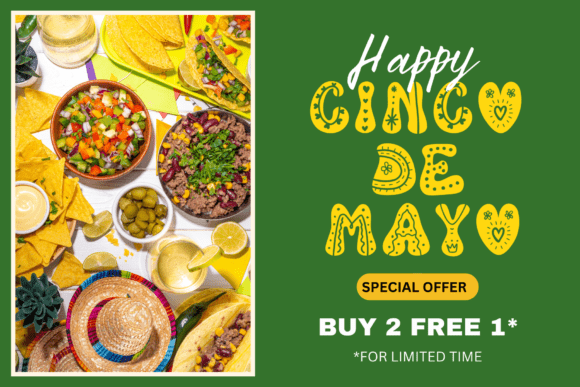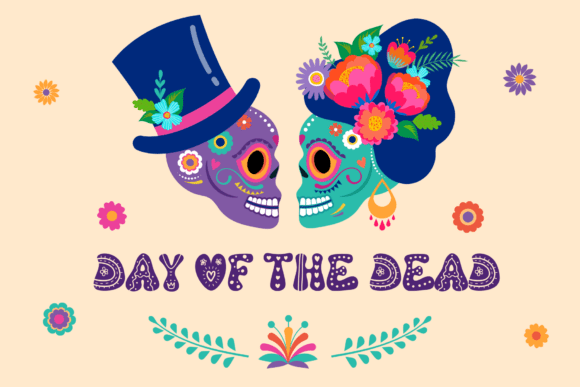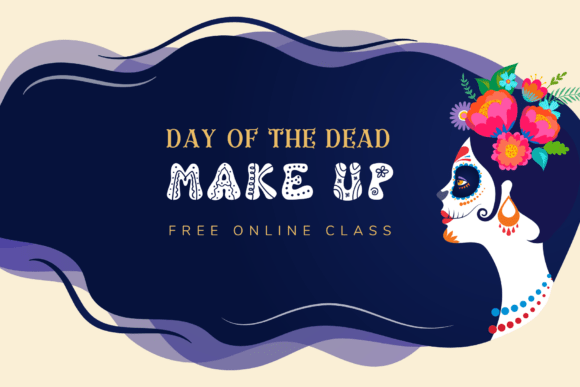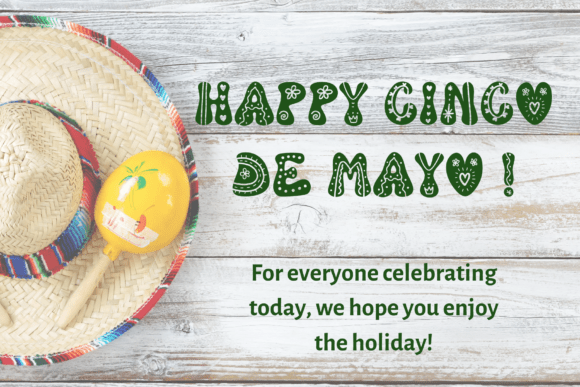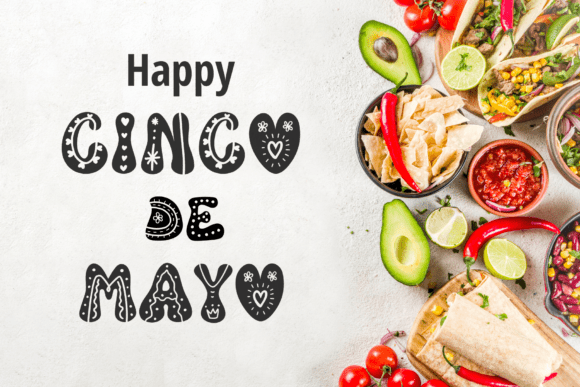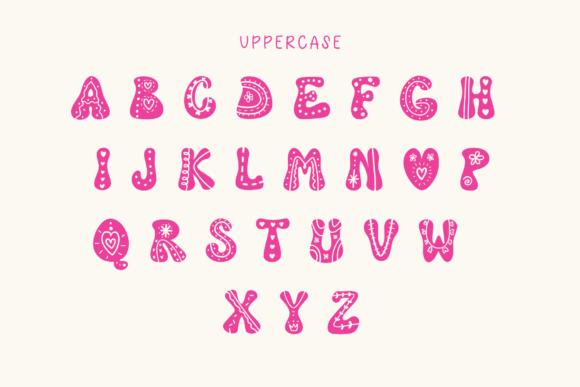
Cinco De Mayo Font: Add a Touch of Fiesta to Your Designs
Cinco De Mayo, which translates to “Fifth of May” in Spanish, is a Mexican holiday that celebrates the country’s victory over French forces at the Battle of Puebla in 1862. The holiday has become a popular cultural phenomenon in the United States, often associated with Mexican food, music, and festivities. To capture the essence of this vibrant celebration, designers and crafters can use the Cinco De Mayo font in their projects.
About Cinco De Mayo Font
The Cinco De Mayo font is a retro decorative font designed to evoke the spirit of the holiday. Its unique and playful style makes it perfect for adding a touch of fiesta to any design. The font features bold, colorful, and ornate letters, reminiscent of traditional Mexican art and architecture. With its distinctive flair, the Cinco De Mayo font is sure to make your designs stand out.
Uses of Cinco De Mayo Font
The Cinco De Mayo font is versatile and can be used in a variety of design projects, including:
- Logo Design: Create a memorable logo for your business or brand with the Cinco De Mayo font. Its bold and eye-catching style makes it perfect for food trucks, restaurants, and other businesses that want to add a touch of Mexican flair to their branding.
- Greeting Cards: Design festive greeting cards for Cinco De Mayo or other celebrations using the Cinco De Mayo font. The font’s playful style makes it ideal for creating fun and colorful cards.
- Posters and Flyers: Create eye-catching posters and flyers for events, promotions, or announcements using the Cinco De Mayo font. The font’s bold and decorative style makes it perfect for grabbing attention.
- Outdoor Advertising: Use the Cinco De Mayo font in outdoor advertising, such as billboards, banners, or signs, to add a touch of excitement and energy to your message.
- Digital Designs: Incorporate the Cinco De Mayo font into your digital designs, such as social media graphics, email headers, or website elements, to add a pop of color and personality.
Why Choose Cinco De Mayo Font?
The Cinco De Mayo font offers several benefits that make it an excellent choice for designers and crafters:
- Unique Style: The Cinco De Mayo font features a distinctive and stylish design that will set your projects apart from others.
- Easy to Read: Despite its decorative style, the Cinco De Mayo font is easy to read, making it perfect for use in a variety of design projects.
- Versatile: The Cinco De Mayo font can be used in a range of design projects, from logos and branding to greeting cards and posters.
- Cultural Significance: The Cinco De Mayo font allows designers and crafters to tap into the cultural significance of the holiday, adding an extra layer of meaning to their designs.
Tips for Using Cinco De Mayo Font
To get the most out of the Cinco De Mayo font, follow these tips:
- Use it sparingly: While the Cinco De Mayo font is eye-catching, it’s best to use it sparingly to avoid overwhelming your design.
- Pair it with complementary fonts: Pair the Cinco De Mayo font with complementary fonts to create visual interest and hierarchy in your design.
- Experiment with colors: The Cinco De Mayo font looks great in bold, bright colors. Experiment with different colors to find the perfect combination for your design.
The Cinco De Mayo font is a fun and festive way to add a touch of Mexican flair to your designs. Its unique style, versatility, and cultural significance make it an excellent choice for designers and crafters. Whether you’re creating a logo, greeting card, poster, or outdoor advertising, the Cinco De Mayo font is sure to make your designs stand out. So why not give it a try and add a little fiesta to your designs?